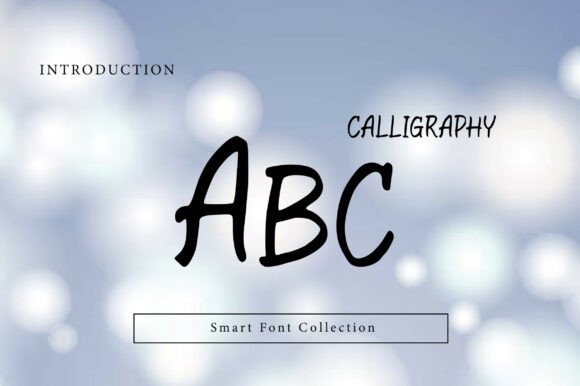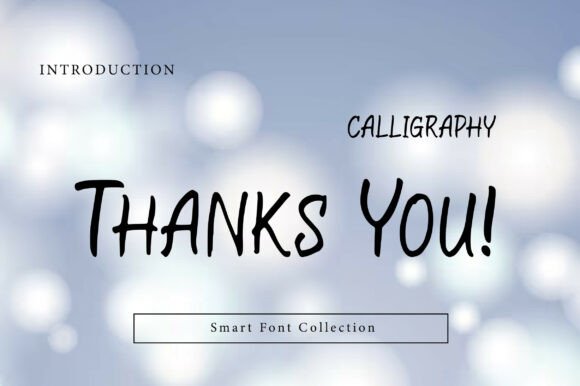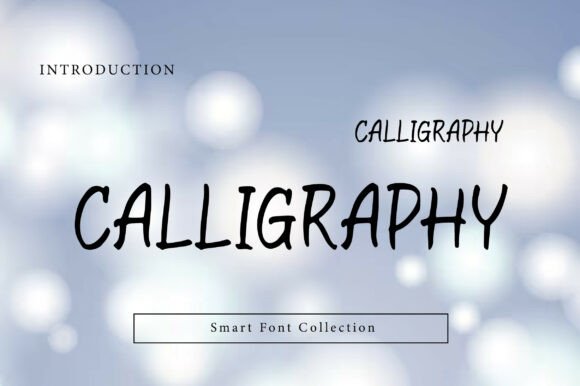
The Beauty of Calligraphy Font: A Designer’s Delight
I’ll never forget the moment I stumbled upon the perfect font for a client’s wedding invitation project. I had been searching for what felt like hours, trying out font after font, but nothing seemed quite right. That was until I discovered Calligraphy Font – a stunning, handwritten calligraphy-style display font that captured the elegance and whimsy of the occasion. In this article, I’ll share my love for Calligraphy Font, its features, and how to make the most of it in your designs.
What I Love About Calligraphy Font
Calligraphy Font is a natural, expressive font that embodies the fluid strokes, organic movement, and relaxed artistic feel of casual pen lettering. Here are some things that I love about it:
- ✨ Elegant yet informal, making it perfect for a wide range of design projects
- ✅ Expressive yet readable, ensuring your message gets across with style
- 💫 Fluid strokes and organic movement that give it a personal, handcrafted touch
- 🎨 Versatile and adaptable, suitable for quotes, posters, branding, invitations, social media graphics, packaging, and editorial designs
While Calligraphy Font is an amazing addition to any design project, there are a few quirks to be aware of:
- 🤔 May not be suitable for very small font sizes or body text, as it can become difficult to read
- ⚠️ Limited availability of certain characters or glyphs, so be sure to check the font’s capabilities before use
The Story Behind Calligraphy Font
Calligraphy Font was inspired by the art of casual pen lettering and the desire to create a font that captures the elegance and expressiveness of handwritten text. Its creator aimed to craft a font that feels both sophisticated and approachable, making it perfect for a wide range of design projects.
| What is Calligraphy Font best suited for? | Calligraphy Font is ideal for quotes, posters, branding, invitations, social media graphics, packaging, and editorial designs where a personal, handcrafted touch is desired. |
| Is Calligraphy Font suitable for body text? | While Calligraphy Font is beautiful, it’s not recommended for body text due to its elegant yet informal nature and potential readability issues at small font sizes. |